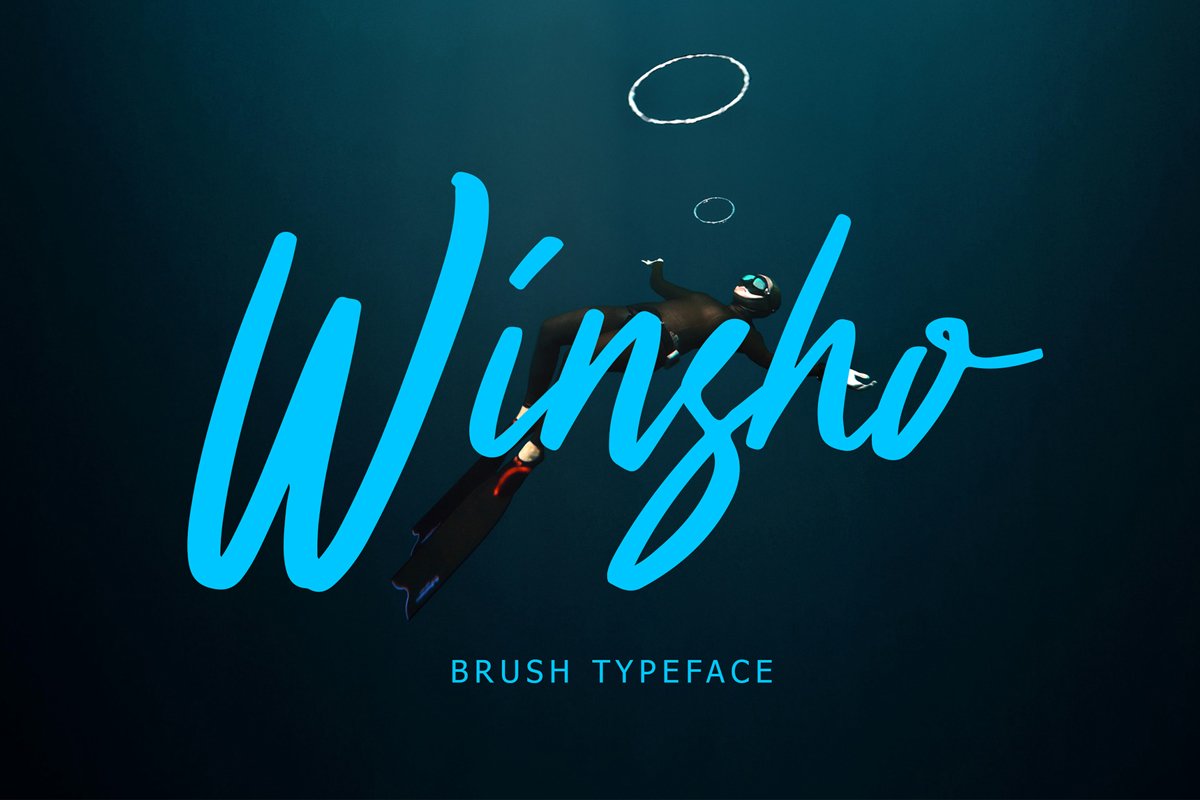
Winsho
Winsho is a brush typeface can make your text appear elegant, luxurious, and modern!Winsho is perfect for branding projects, logo, wedding designs, social media posts, advertisements, product packaging, tshirt design, product designs, label, photography, watermark, invitation, stationery and any projects.What's Included :